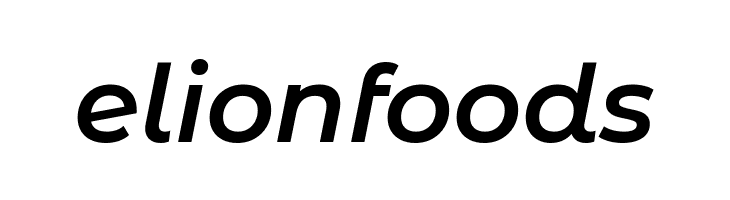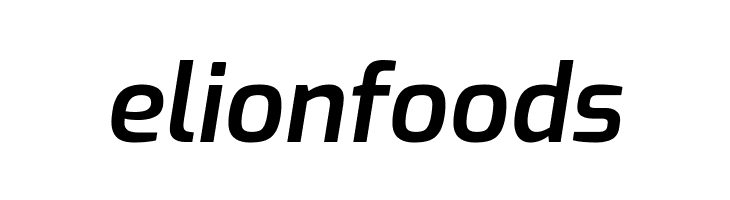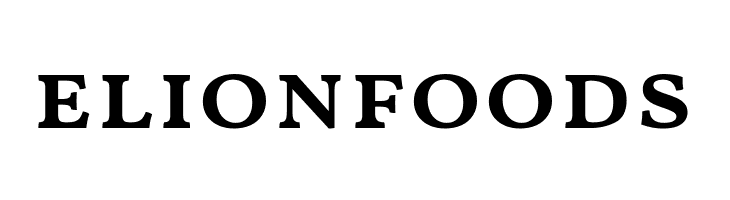
A modern, geometric sans-serif font with a clean and versatile style.
A modern, geometric sans-serif font with a sleek, italicized style.
A modern, geometric font with a clean and sleek design.
A modern, semi-bold italic font with a sleek and dynamic style.
A semi-bold serif font with classic, elegant features and balanced proportions.
A bold, modern sans-serif font with a clean and robust appearance.
A classic serif font with a semi-bold weight and elegant italic style.
A classic serif font with semi-bold weight and moderate contrast, ideal for elegant and authoritative designs.
A modern, semi-bold sans-serif font with clean lines and balanced proportions.
A modern, semi-bold, italic sans-serif font with a clean and dynamic style.